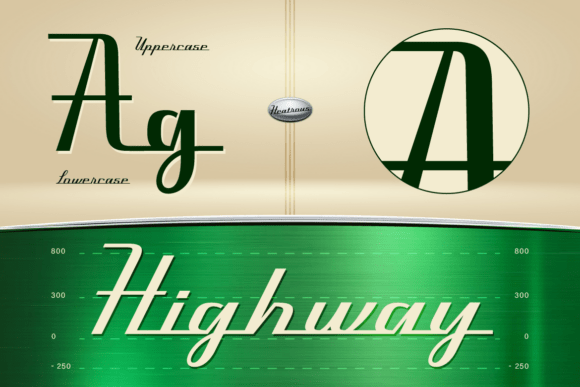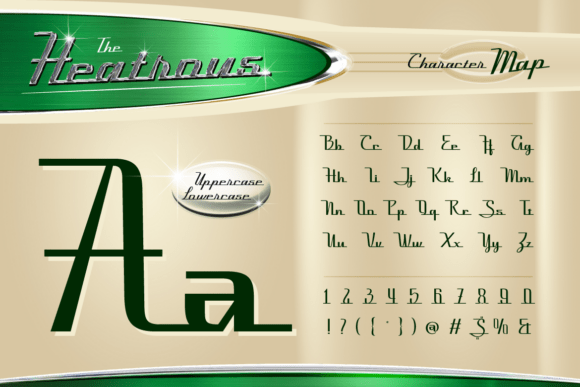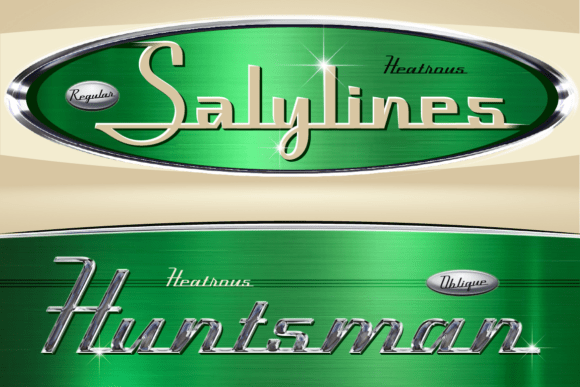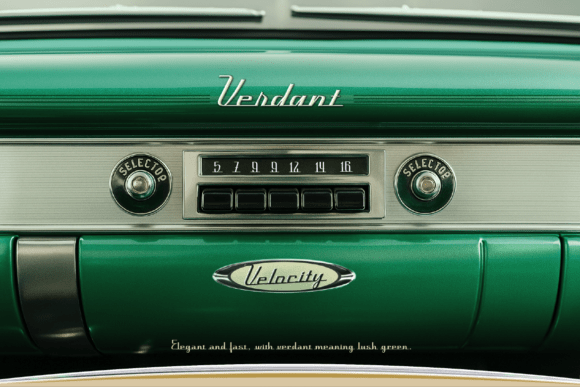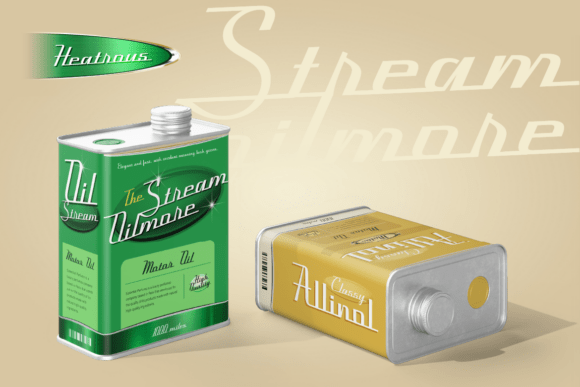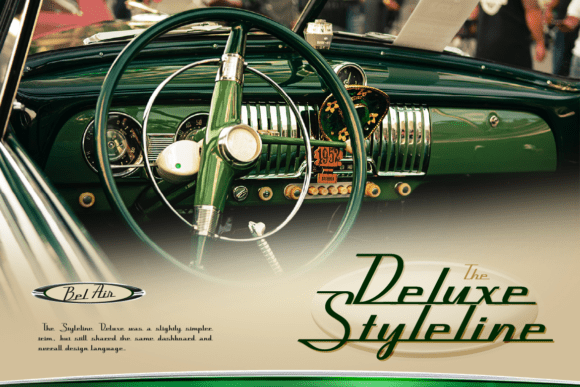
Introduction to Heatrous Font
Have you ever stumbled upon an old vinyl record or a vintage car, and suddenly, you’re transported back to a bygone era? The nostalgic charm of retro design is something that never fails to captivate us. As designers, we’re always on the lookout for that perfect combination of style and sophistication to elevate our creative projects. That’s where the Heatrous Font comes in – a vintage display typeface that instantly evokes the spirit of classic radios, speakers, and shiny chrome emblems.
With its sleek lines, stylish ligatures, and timeless vibes, the Heatrous Font is a valuable design resource for any creative project. Whether you’re working on a branding project or a high-quality brochure, this font is sure to add a touch of nostalgia and elegance to your design. Plus, with its transparent background option, you can easily integrate it into your design without any fuss.
As a free download, the Heatrous Font is a must-have in every designer’s toolkit. Its unique Regular and Oblique styles give you the flexibility to mix sophistication with a bit of flair, making it the perfect choice for any design project that requires a high-quality, retro-inspired look.
Key Features of Heatrous Font
- Unique, modern font style with a transparent background, perfect for digital designs
- Perfect for designers and artists seeking a high-quality, versatile font for their creative projects
Honest Review: Heatrous Font
As a designer, I’m always on the lookout for high-quality design resources that can elevate my creative projects. Recently, I had the chance to work with the Heatrous Font, and I’m excited to share my honest review with you.
One of the things that really stood out to me about the Heatrous Font is its sleek and modern design. The font is incredibly versatile and can be used for a wide range of creative projects, from digital interfaces to print materials.
- High-quality design that’s perfect for modern creative projects
- Works well with transparent backgrounds, allowing for a seamless design experience
- Limited character set, which may not be suitable for longer texts or complex layouts
- No bold or italic versions available, which may limit its use in certain contexts
Overall, I’m impressed with the Heatrous Font and its potential to elevate my creative projects. While it has some limitations, I think it’s a great resource for designers who are looking for a high-quality, modern font.
The Heatrous Font is a versatile design resource perfect for any creative project. Its high-quality and transparent background make it ideal for various applications, including graphic design and digital art.
Tips for Getting the Most Out of Heatrous Font
For the best results, use the Heatrous Font on a transparent background to achieve a seamless design. Experiment with different font sizes and colors to create a unique look.
The Heatrous Font is perfect for:
- Digital art